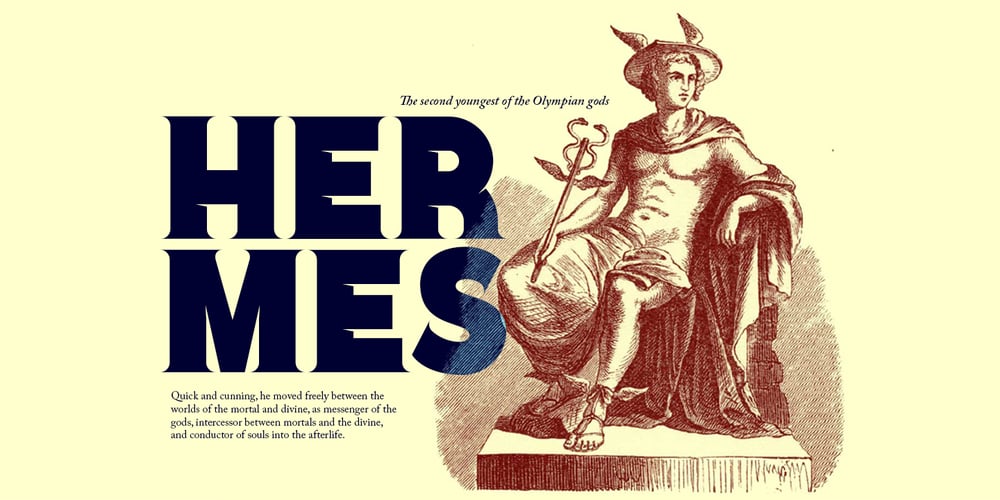
Essay
Essay font
Essay Font Family was designed by Jose Antonio Garrido Izquierdo and published by Noem9 Studio. Essay contains 8 styles and family package options. Essay was born from an afternoon in Berlin in September 2013, looking at old book covers. Inspired by Herb Lubalin, Athletics & Rock music. Its details relate with speed & punk styles but keeping the main structure intact. Works perfectly as main/bold typography combined with some serif typefaces. – More than 250 Glyphs – Full Accented Character Set – Numbers + Punctuation Marks – International Characters – 8 Different Styles (Normal, Display, Poster, Poster Heavy, and Oblique versions)